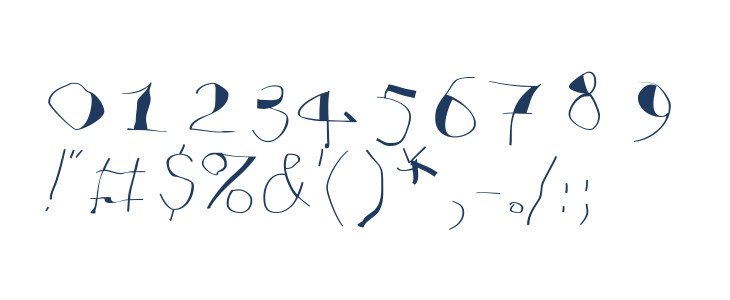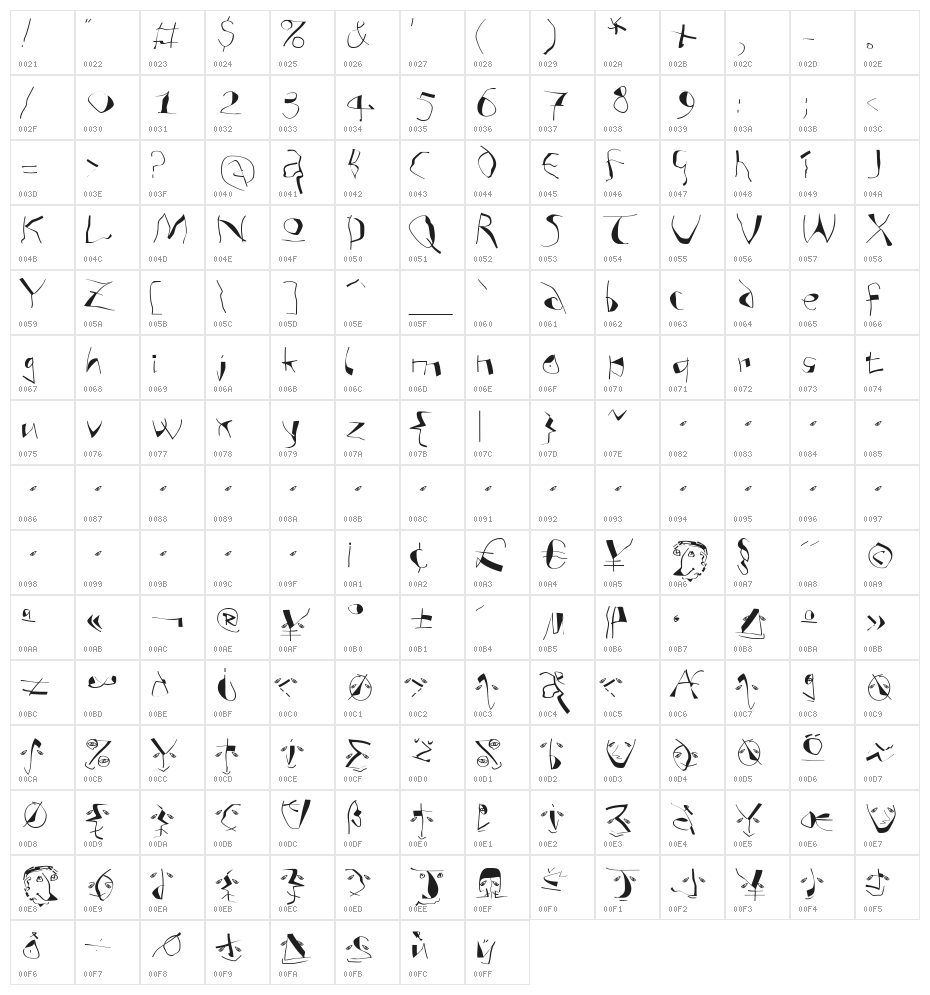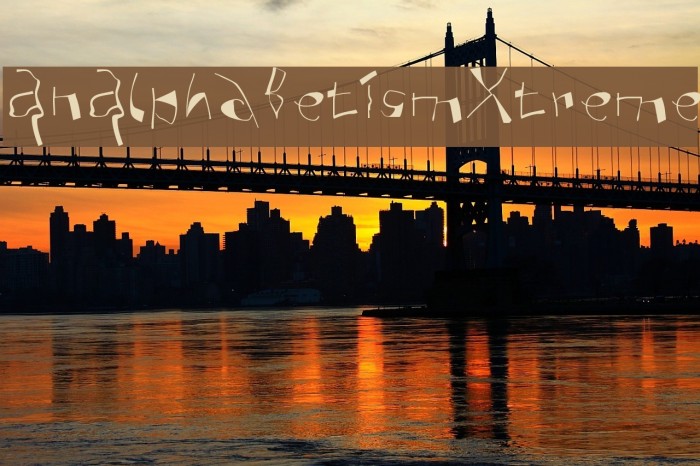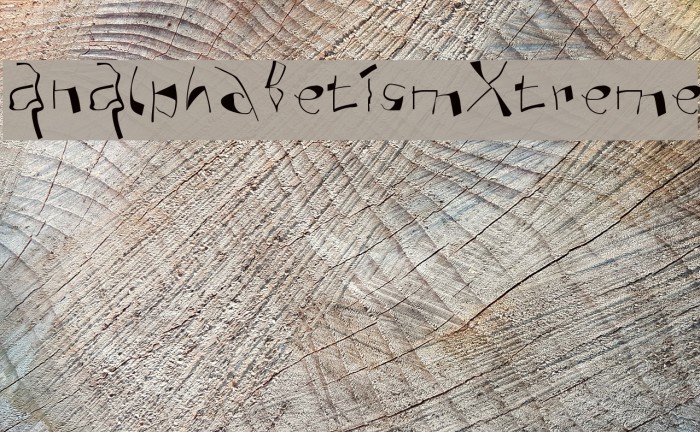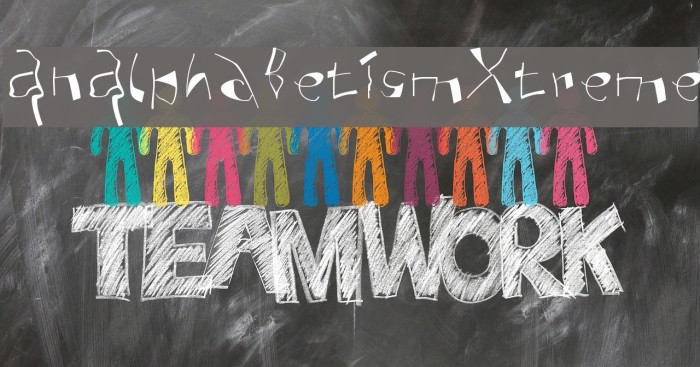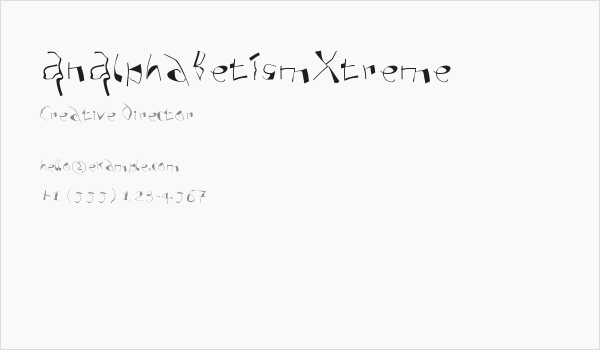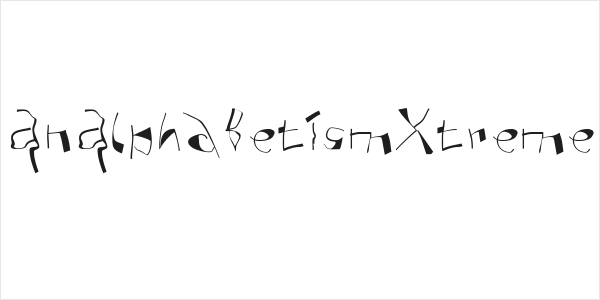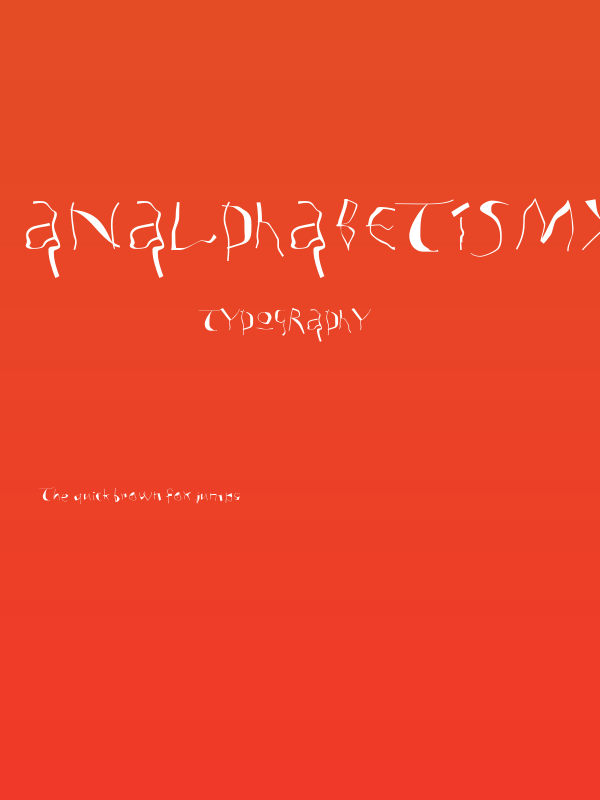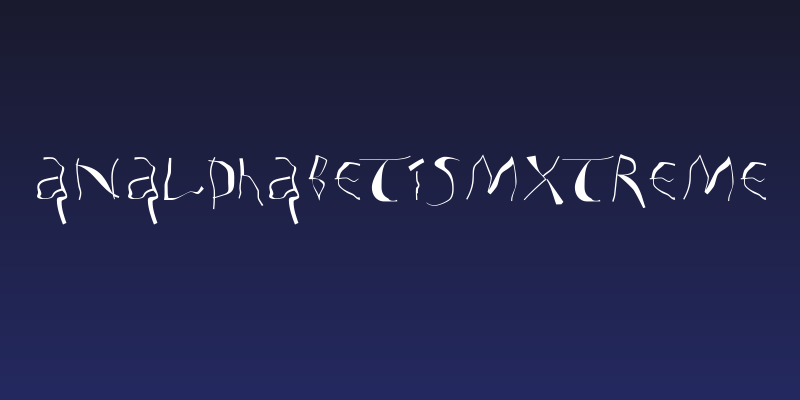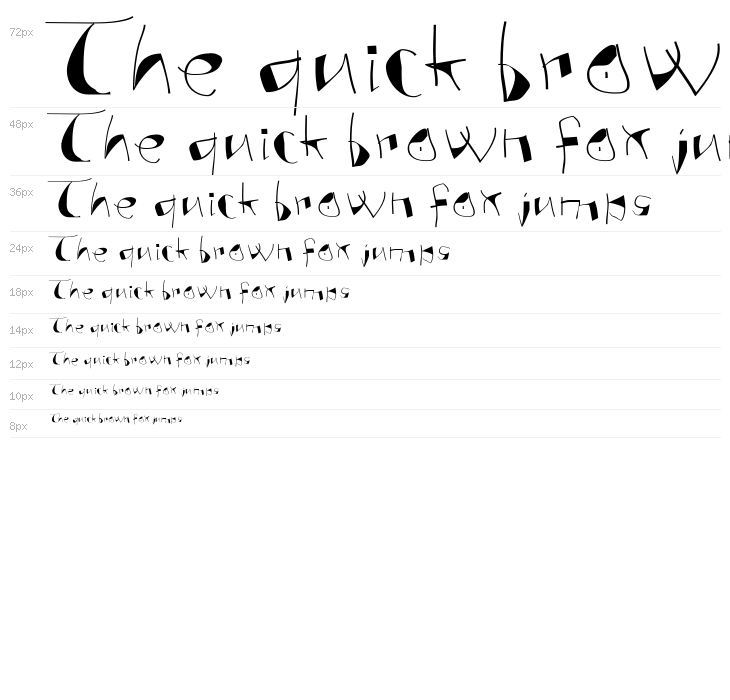
AnAlphaBetIsmXtreme Font
AnAlphaBetIsmXtreme Description
This font features an avant-garde and abstract design, characterized by its irregular and jagged strokes. The letters exhibit a unique blend of sharp angles and fluid curves, creating a dynamic and energetic appearance. The uppercase and lowercase letters maintain a consistent style, with some characters appearing more elongated and others more compact. The numerals and special characters follow the same artistic theme, adding to the font's cohesive look. This font's unconventional style makes it stand out, offering a bold and artistic flair.
| Use Case | Logos, Posters, Artistic Projects |
| Proposed Projects | Ideal for artistic projects, modern art posters, album covers, and creative branding. |